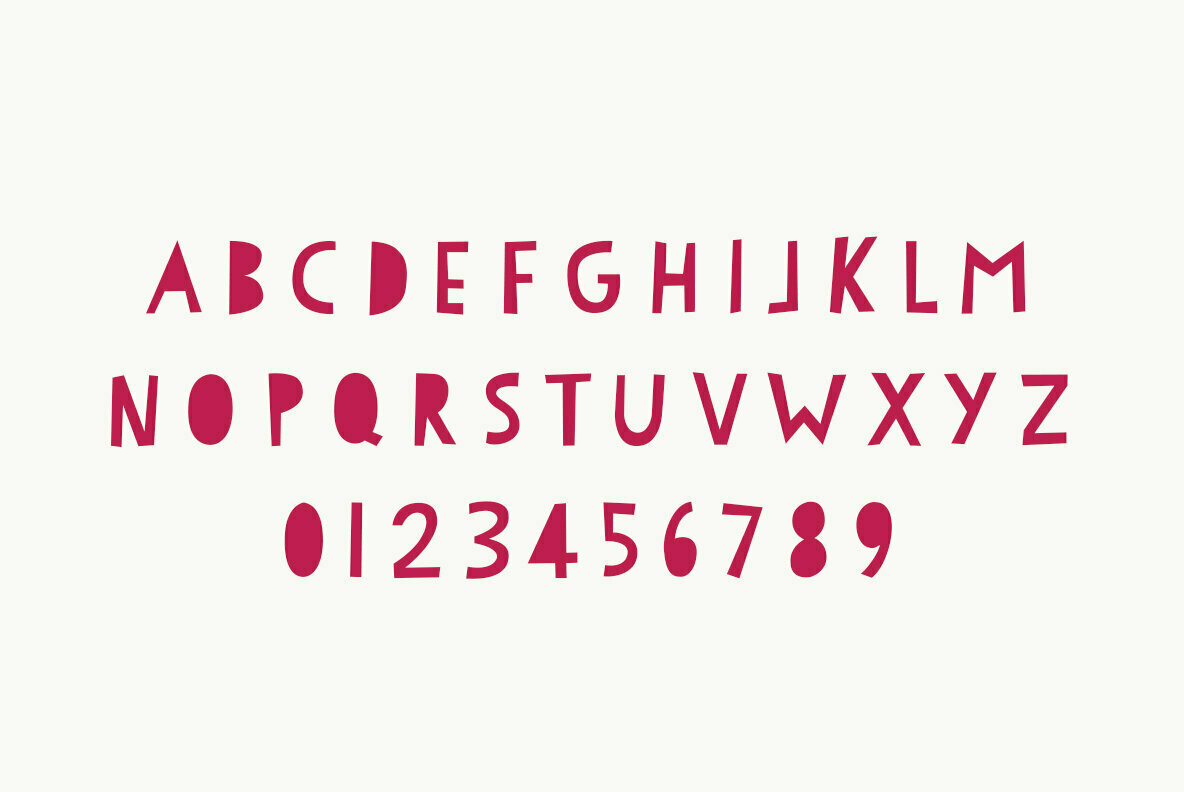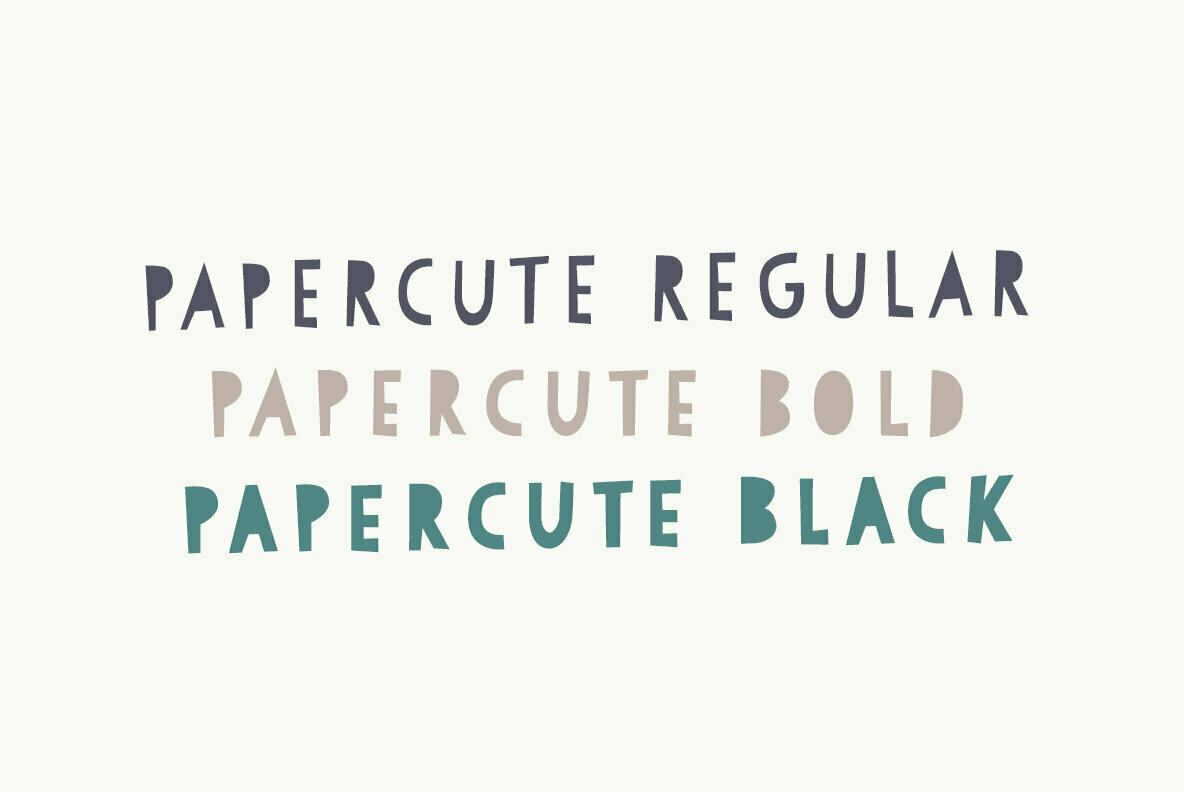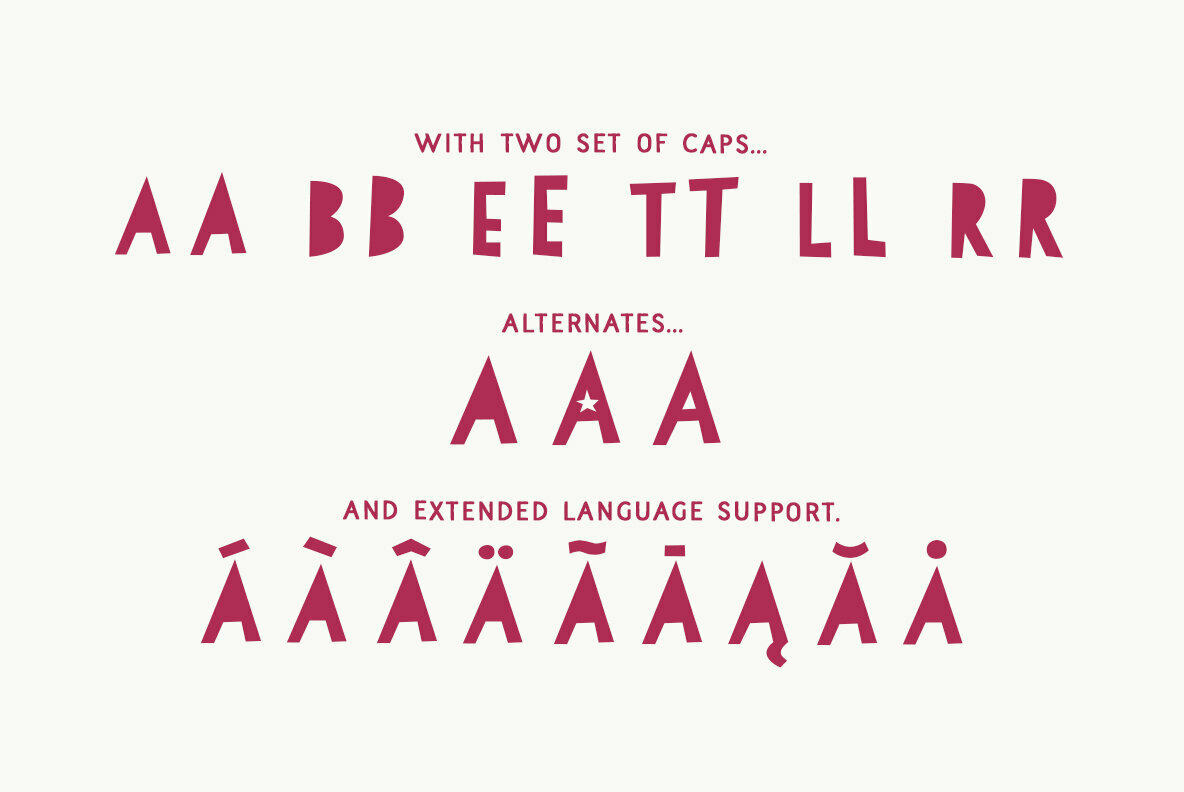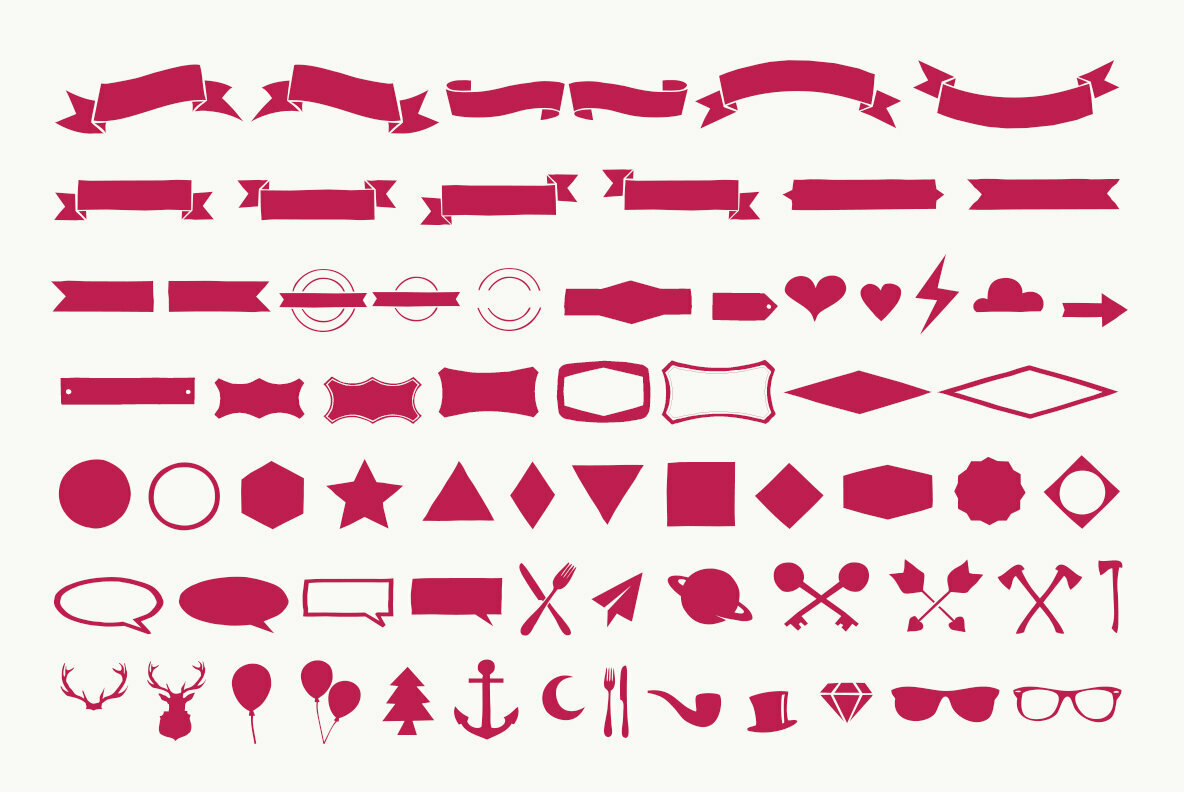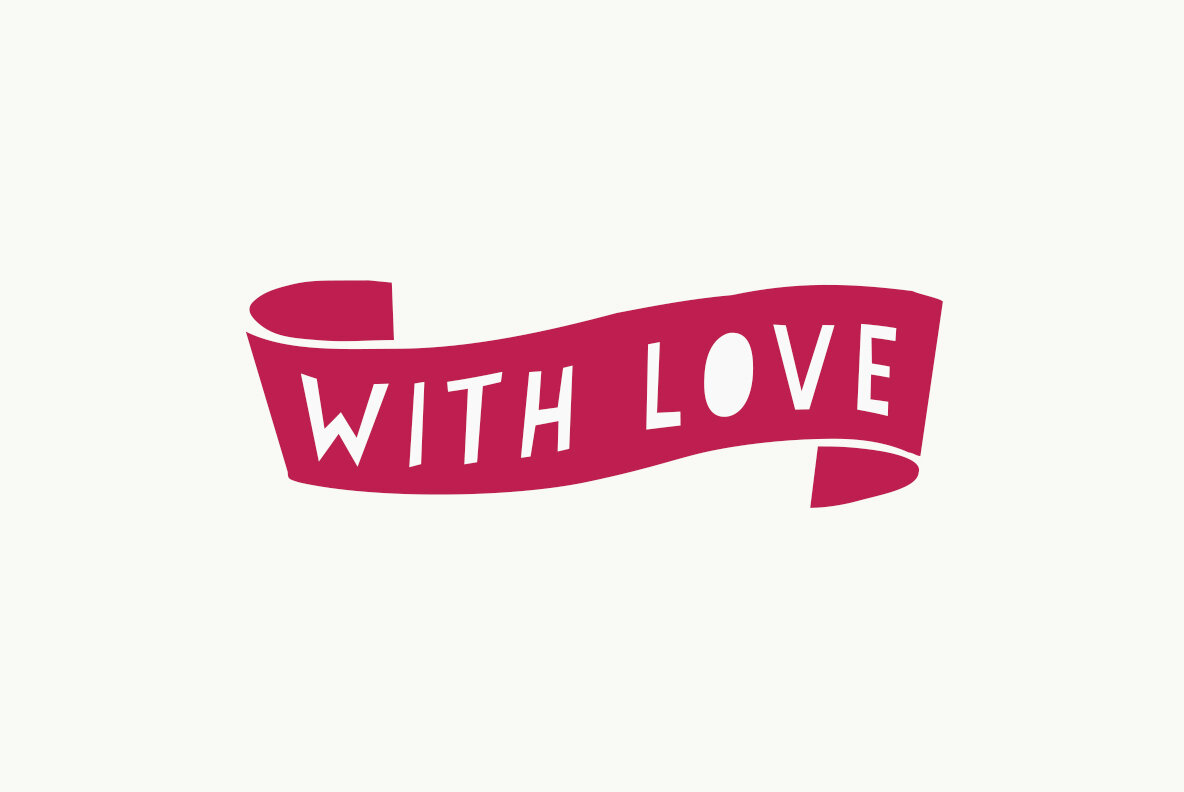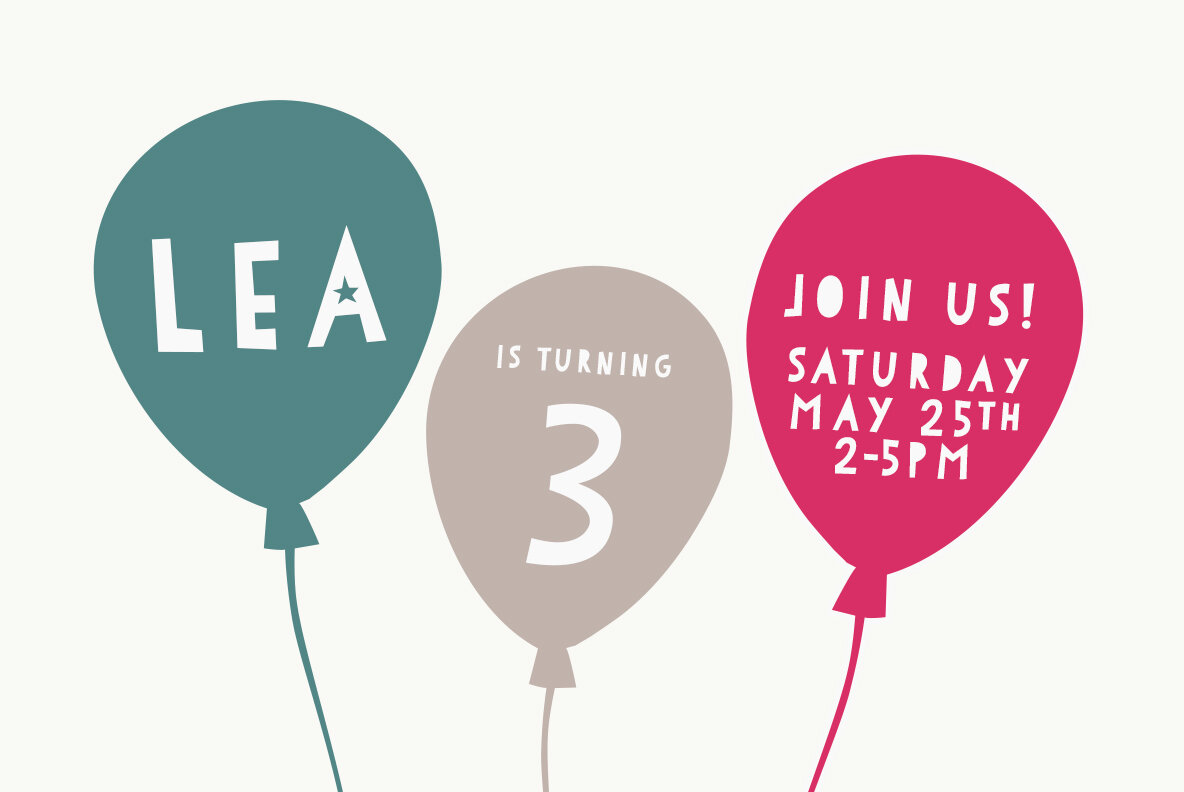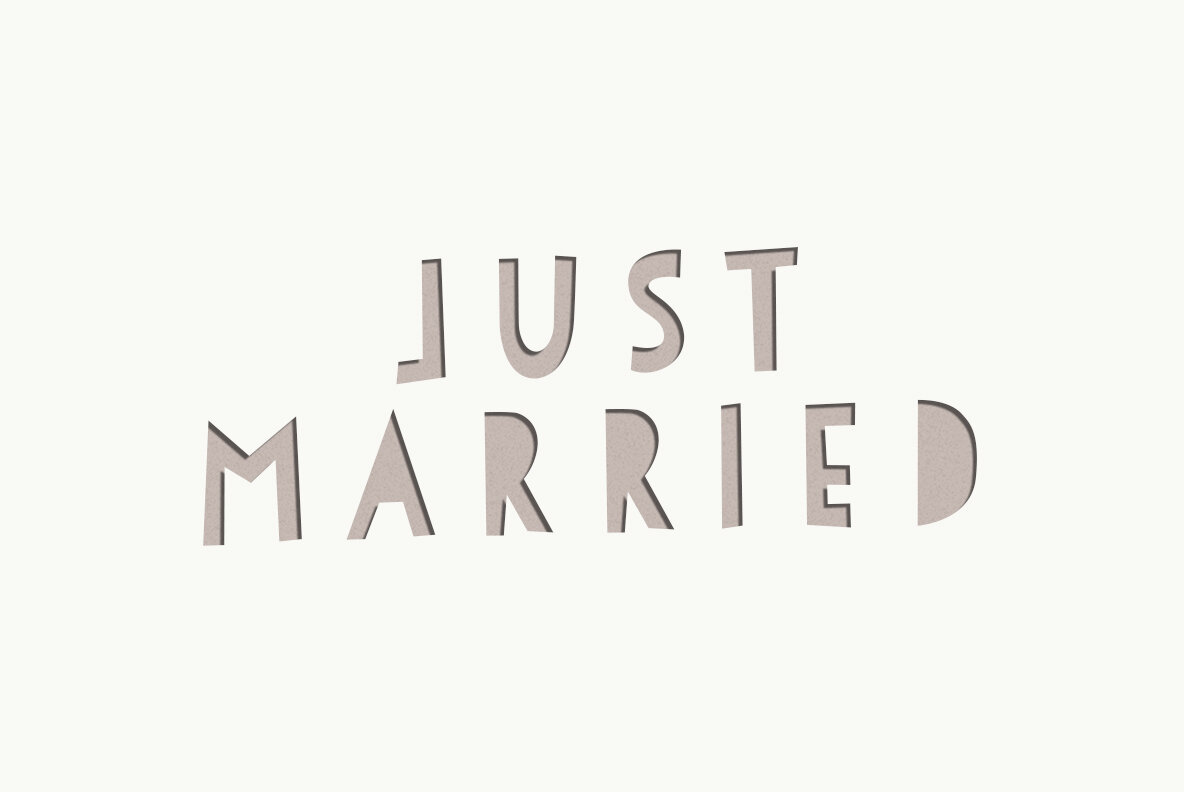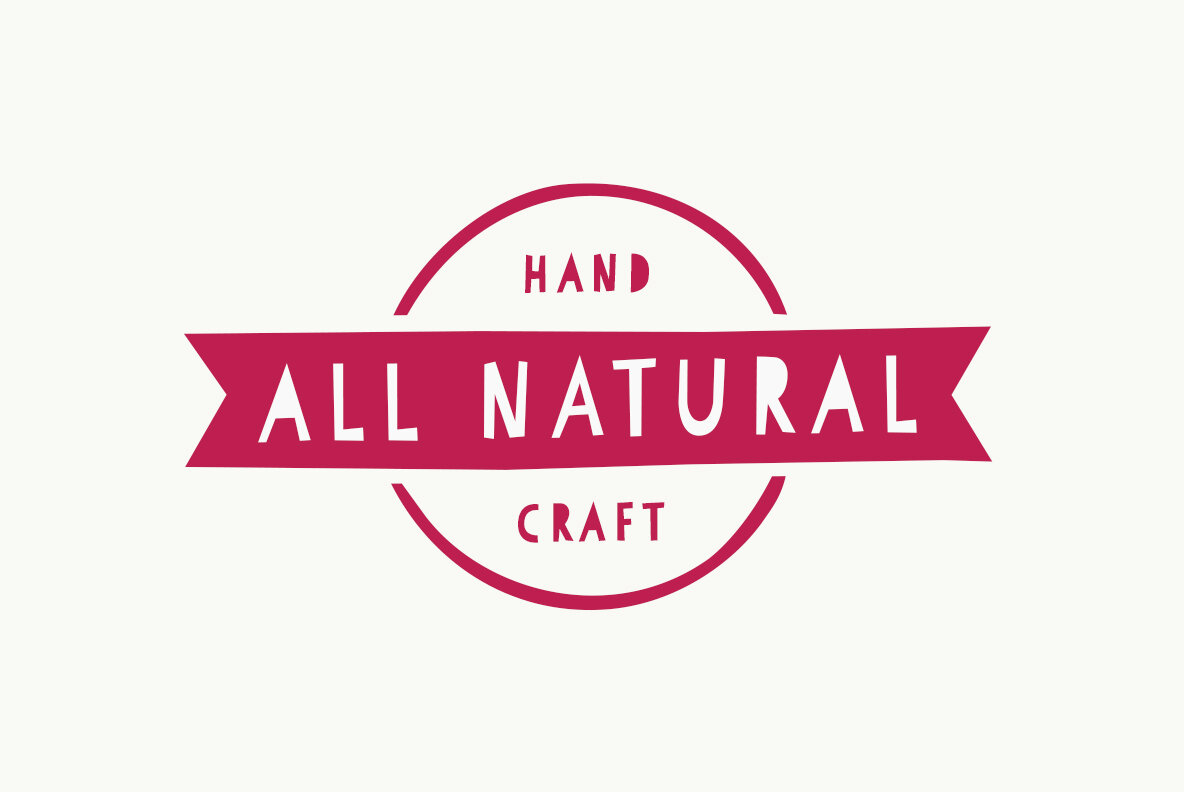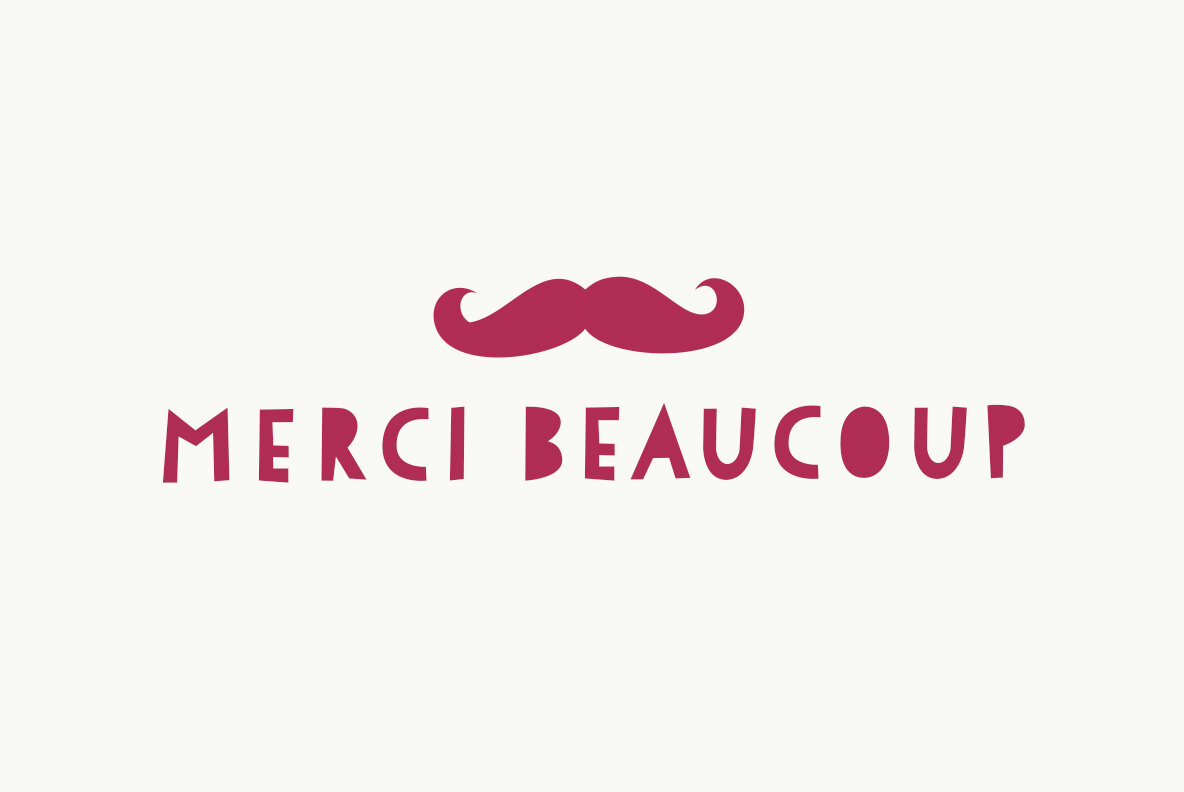
Papercute Font
Papercute is a cute hand-drawn font designed by Fanny Coulez and Julien Saurin in Paris. Inspired by paper cutting, this font is easy to read, easy to play. Small caps are a little different than caps to create alternative glyphs. We also designed a set of cute paper ornaments, to enhance your designs.